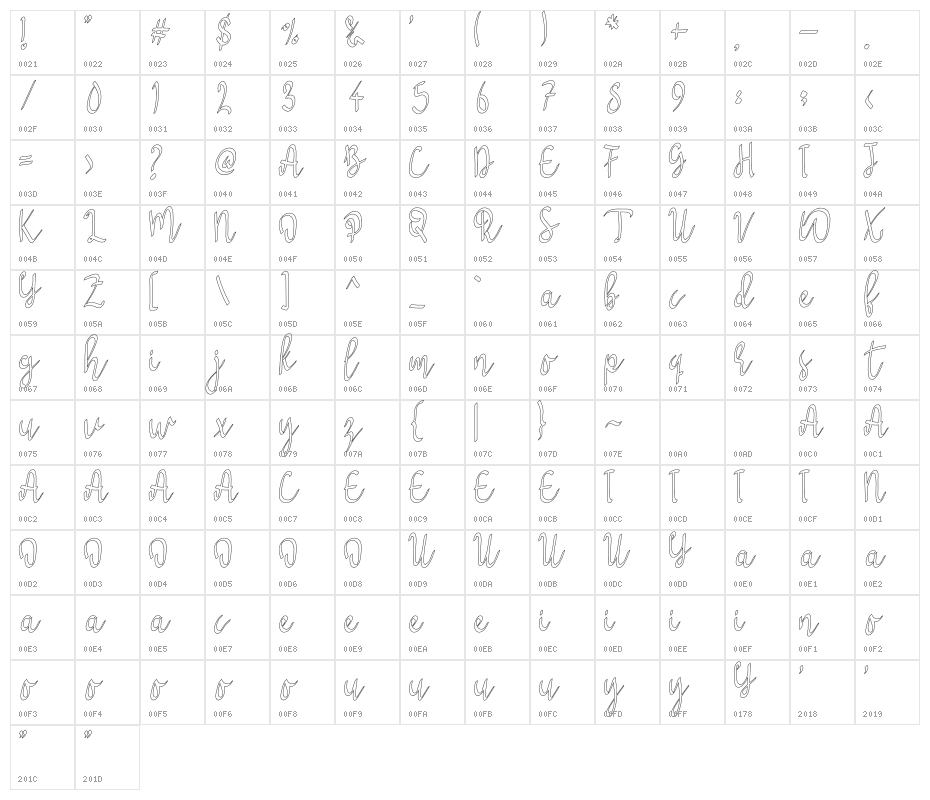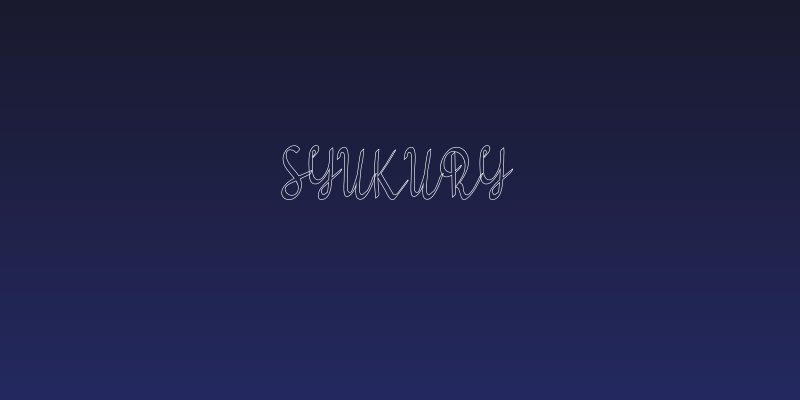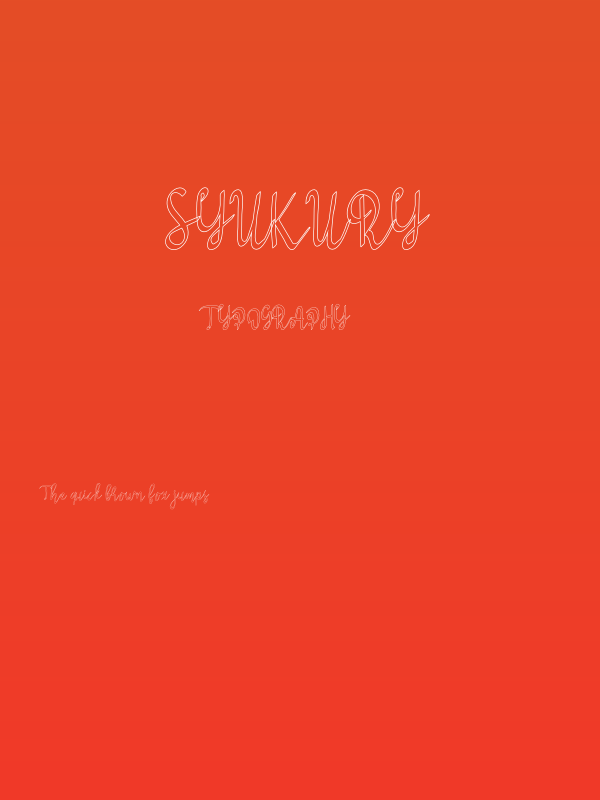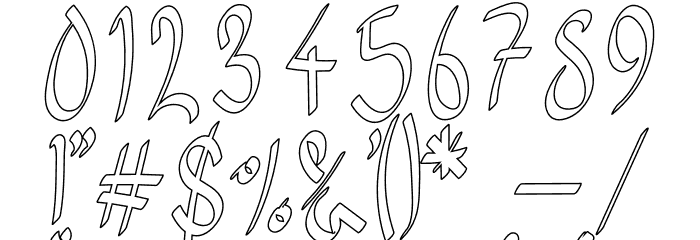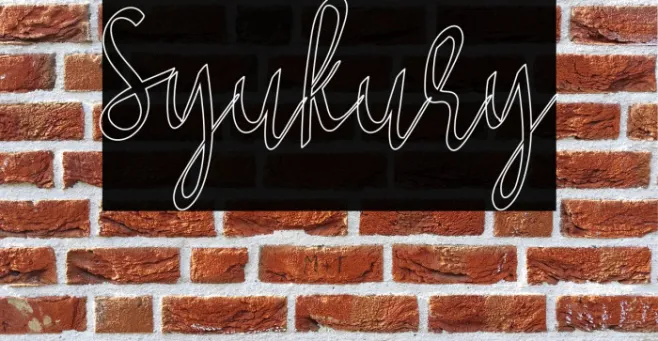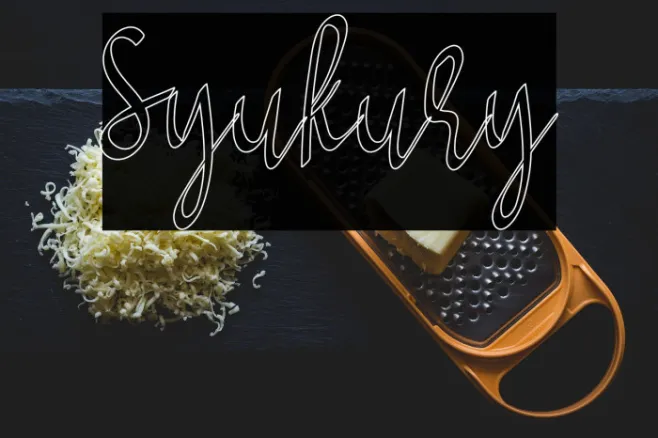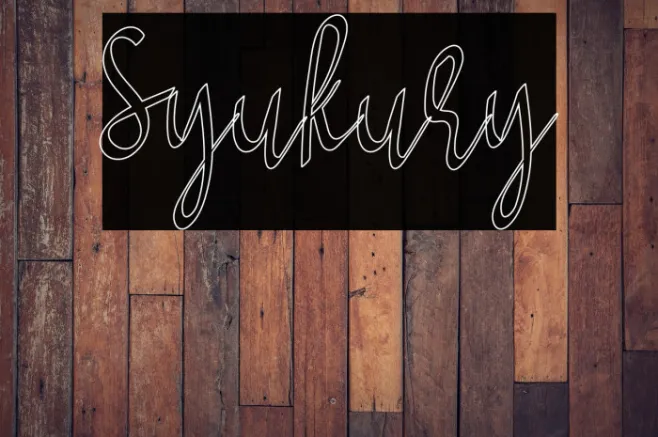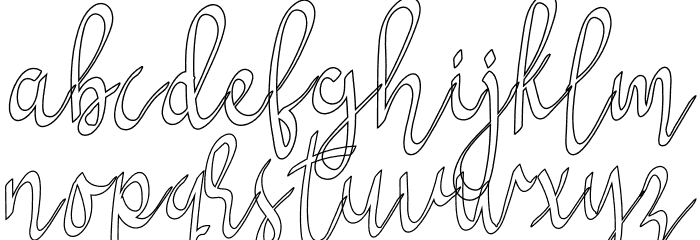
Syukury Font
Syukury Description
This font features a lively and flowing script style, characterized by its cursive, hand-drawn appearance. Each letter is connected, creating a seamless and elegant look. The strokes are smooth and consistent, with a slight slant that adds to its dynamic feel. The uppercase letters are bold and prominent, while the lowercase letters maintain a delicate balance, offering a harmonious blend. The numerals and special characters follow the same fluid style, ensuring uniformity throughout. This font exudes a sense of creativity and personal touch, making it ideal for projects that require a handwritten aesthetic.